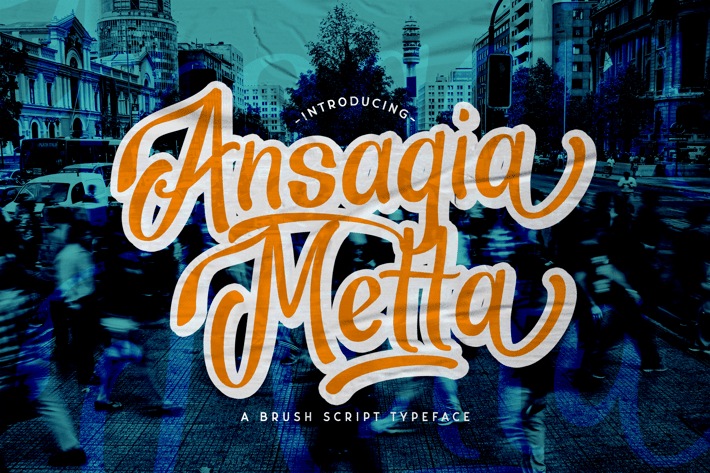
Ansagia Metta - Bold Script Font
Introducing Ansagia Metta - Bold Script Font
Ansagia Metta is a flowing handwritten font, described by an elegant touch, perfect for your favorite projects. Fall in love with its incredibly distinct and timeless style and use it to create spectacular designs! This font is PUA encoded which means you can access all of the glyphs and swashes with ease!
- Stylistic Alternates
Ansagia Metta is a flowing handwritten font, described by an elegant touch, perfect for your favorite projects. Fall in love with its incredibly distinct and timeless style and use it to create spectacular designs! This font is PUA encoded which means you can access all of the glyphs and swashes with ease!
- Stylistic Alternates